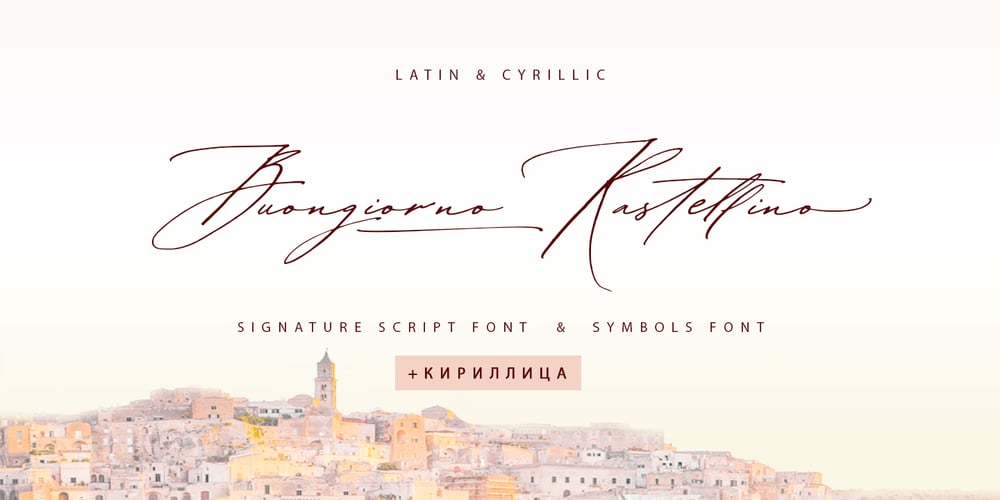
Buongiorno Rastellino Cyrl
Buongiorno Rastellino Cyrl font
Buongiorno Rastellino Cyrl Font Family was designed by Iryna Dviliuk and published by Ira Dvilyuk. Buongiorno Rastellino Cyrl contains 2 styles and family package options. The enchanting sweepy of fast handwriting of script font Buongiorno Rastellino will be the perfect complement for all your projects. The font pair Buongiorno Rastellino Cyrillic is the best option for branding, logos, social media, packaging, business cards, DIY projects, social media, and many others.Buongiorno Rastellino Symbols is the font with 62 lovely hand-drawn flourishes and illustrations.Buongiorno Rastellino Cyrillic script font contains the Cyrillic glyphs too.Buongiorno Rastellino script Latin part contains a full set of uppercase letters and 3 full sets of lowercase letters, (standard, initial and final forms with flourishes or teils. To make a needed form just type a letter with a number such as a1, b1, c1…after that selecting the word and apply the Open Type Features in programs such as Adobe Illustrator, Photoshop, and others) And 43 ligatures – which can be used to create a handwritten calligraphy look.The Cyrillic part of the font contains the uppercase letters and 3 full sets of lowercase letters, (standard, initial and final form. To make a needed form just type a letter with a number such as a1, б1 в1… After that select the word and apply the Open Type Features in programmes such as Adobe Illustrator, Photoshop, and others) Buongiorno Rastellino Symbols is a font with over 36 hand-drawn elements, floral illustrations, and swashes and can help to make your design unique and matchless. Combine and merge swashes and illustrations to create your own designs and make borders, frames, dividers, logos, and more (just use A-Z or a-z and 0-9 keys in the included Buongiorno Rastellino Symbols font). A different symbol is assigned to each uppercase or lowercase standard character, so you do not need graphics software, just type the letter you need.Multilingual Support for 32 languages: Latin glyphs for Afrikaans, Albanian, Basque, Bosnian, Catalan, Danish, Dutch, English, Estonian, Faroese, Filipino, Finnish, French, Galician, Indonesian, Irish, Italian, Malay, Norwegian Bokmål, Portuguese, Slovenian, Spanish, Swahili, Swedish, Turkish, Welsh, Zulu.And Cyrillic glyphs support Russian, Belorussian, Bulgarian, Ukrainian, and Kazakh languages.